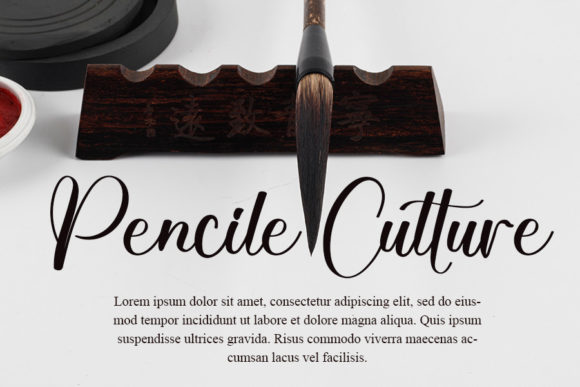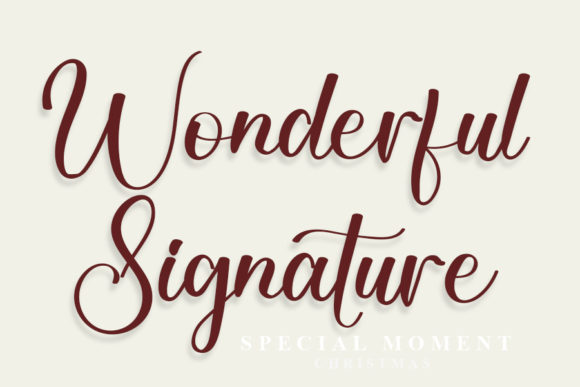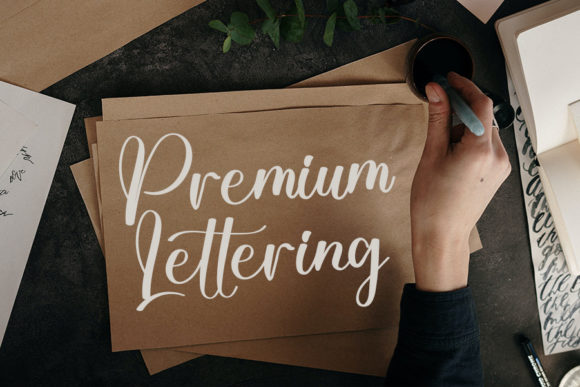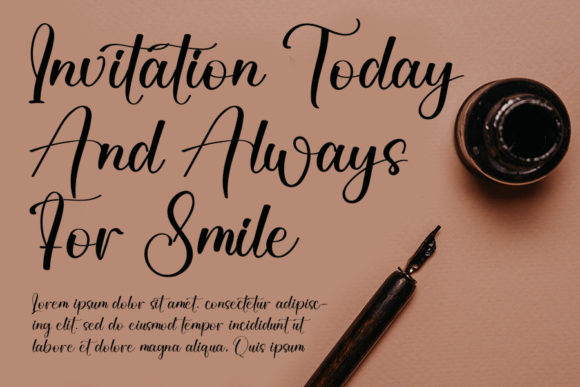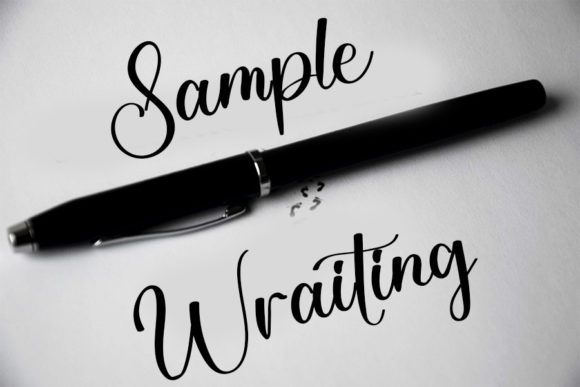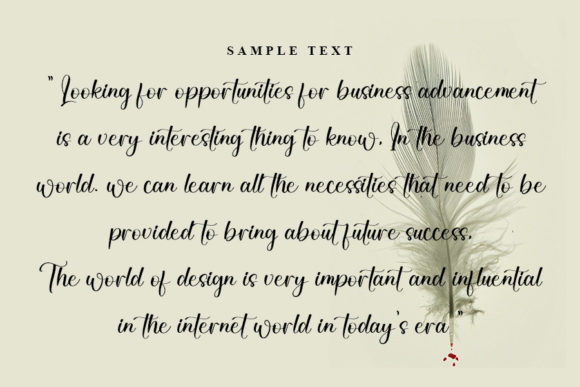
Bikable Font: Elevate Your Designs with Timeless Elegance
In the world of typography, a well-crafted font can make all the difference in elevating your design projects from ordinary to extraordinary. If you’re a designer, crafty enthusiast, or simply someone who appreciates the art of beautiful writing, you’re in luck. Introducing Bikable, a stylish handwritten font that embodies the essence of contemporary elegance with a nod to timeless classic calligraphy.
The Inspiration Behind Bikable
Bikable’s design is rooted in the rich tradition of classic calligraphy, yet it boasts a fresh and modern twist that sets it apart from more traditional fonts. The creators of Bikable drew inspiration from the flowing lines, balanced proportions, and impeccable form of classic calligraphy, infusing it with a contemporary atmosphere that resonates with today’s design sensibilities.
Characteristics of Bikable Font
So, what makes Bikable stand out in the vast sea of fonts available today? Here are some of its key characteristics:
- Handwritten with Flair: Bikable is a handwritten font, but it’s not just any handwritten font. It has a stylish flair that gives it a sophisticated and elegant look, perfect for projects that demand a touch of class.
- Contemporary yet Classic: While Bikable is firmly rooted in contemporary design, it also pays homage to the timeless beauty of classic calligraphy. This blend makes it incredibly versatile for a wide range of projects.
- Balanced and Varied: The font features balanced and varied letterforms that ensure readability and aesthetic appeal. Whether you’re working on a headline, a paragraph of text, or a decorative piece, Bikable adapts beautifully.
- Impeccable Form: Every letter in the Bikable font has been carefully crafted to ensure it meets the highest standards of typographic excellence. The attention to detail is evident in its clean lines, perfect proportions, and elegant flow.
Uses for Bikable Font
The versatility of Bikable makes it suitable for a myriad of design projects. Here are some ideas to get you started:
- Branding and Logos: Use Bikable to create a memorable brand identity that exudes sophistication and style.
- Wedding and Event Invitations: The elegant nature of Bikable makes it perfect for wedding invitations, event announcements, and other special occasion materials.
- Packaging Design: Elevate your product packaging with a font that communicates luxury, quality, and attention to detail.
- Marketing Materials: From brochures to flyers, Bikable can add a touch of elegance to your marketing materials, setting your brand apart from the competition.
- Digital Content: Use Bikable in your digital content, such as blog posts, social media graphics, and website headers, to add a stylish touch to your online presence.
Why Choose Bikable?
With so many fonts available, why should you choose Bikable for your next project? Here are a few compelling reasons:
- Unique yet Readable: Bikable strikes the perfect balance between uniqueness and readability, making it ideal for both decorative and body text applications.
- Time-Saving: With its comprehensive set of characters and styles, Bikable can save you time in the design process, allowing you to focus on other creative aspects of your project.
- Support for Multiple Languages: As a versatile font, Bikable offers support for multiple languages, making it a great choice for global brands and projects.
| Font Name | Bikable Font |
| Author | DoBold.Line |
Bikable is more than just a font; it’s a design tool that can transform your projects with its stylish, contemporary, and elegant appeal. Whether you’re a professional designer or a DIY enthusiast, Bikable offers the perfect blend of classic charm and modern sophistication to elevate your designs. With its impeccable form, balanced and varied lettering, and wide range of applications, Bikable is poised to become your go-to font for projects that demand a touch of timeless elegance.